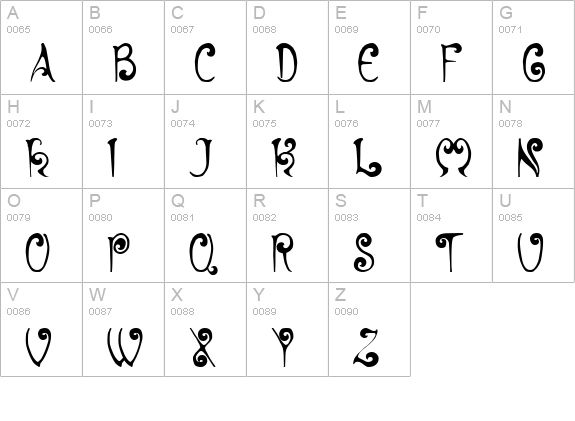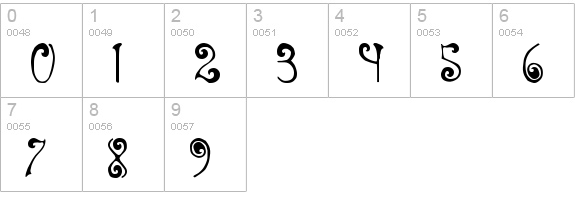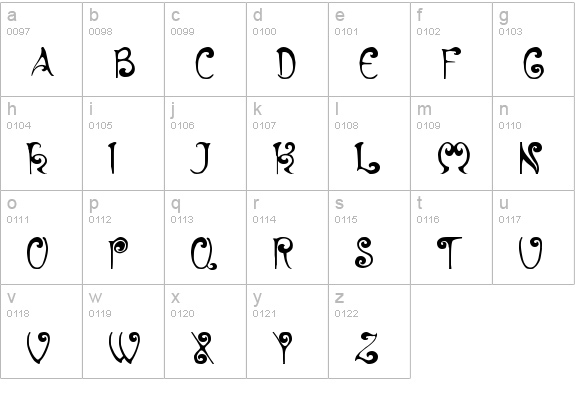
Hyacinth font is a sophisticated and elegant typeface that exudes charm and grace with its unique serifs and delicate curves. Its timeless design makes it a perfect choice for projects that require a touch of refinement and sophistication. With its classic yet modern look, Hyacinth font is versatile and suitable for a wide range of design applications, from branding to editorial design. The best part? Hyacinth font is available for free download at FontsMarket.com. This means you can easily access and use this beautiful font in your projects without any cost. Whether you are a designer, a student, or anyone looking to elevate their designs, Hyacinth font is a fantastic choice that will surely add a touch of elegance to your work. Download this stunning font today and let your creativity shine with Hyacinth.